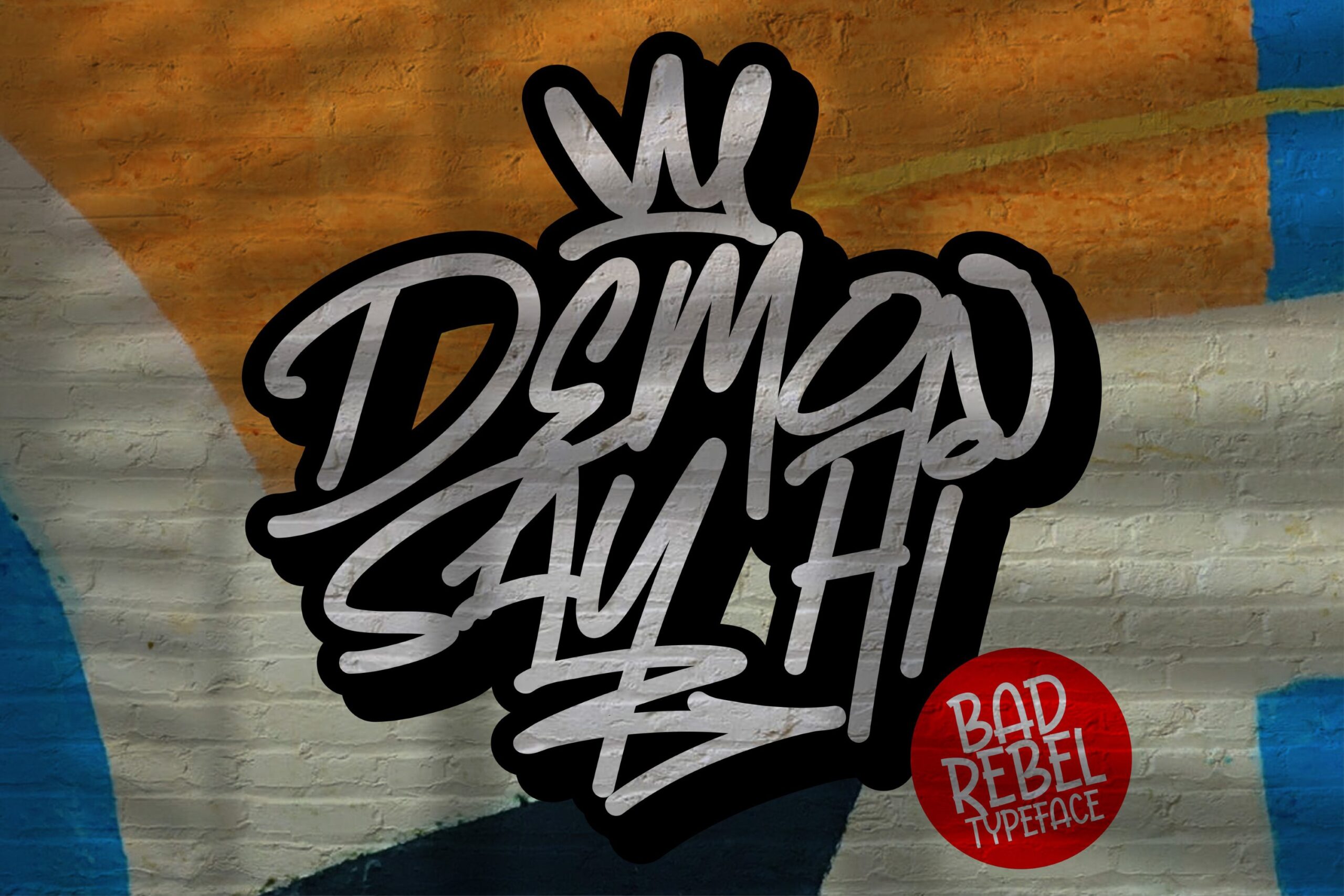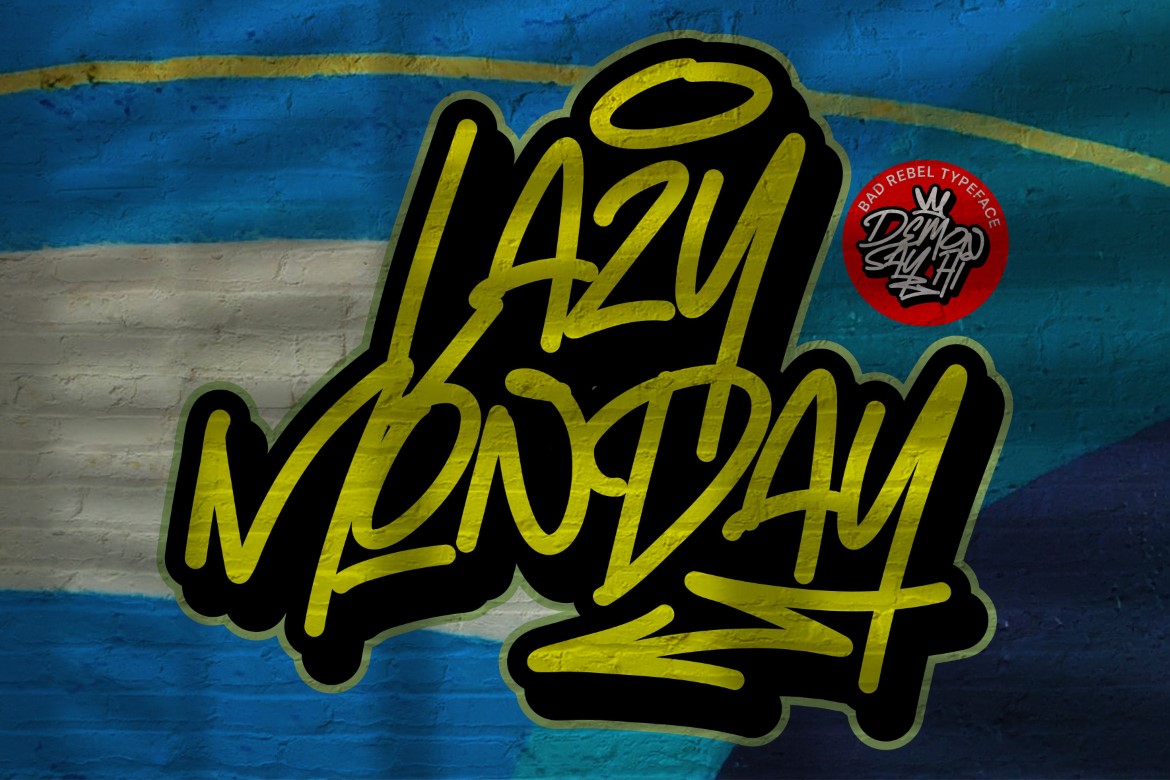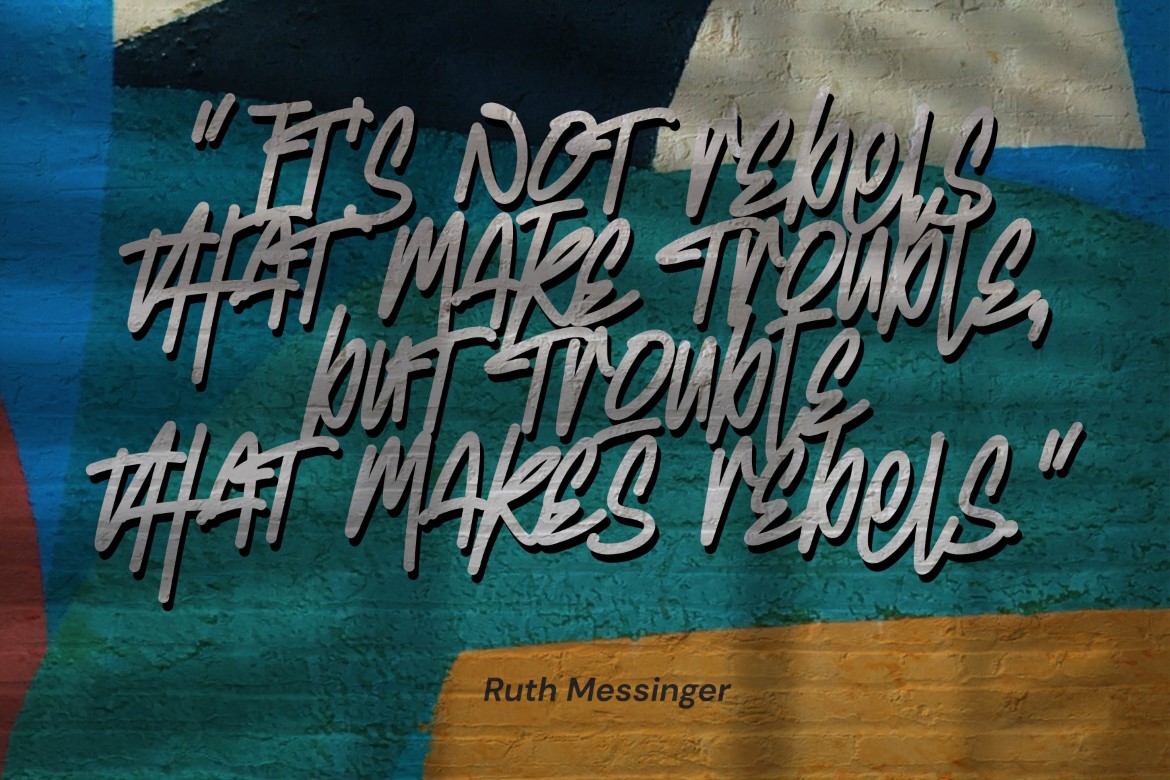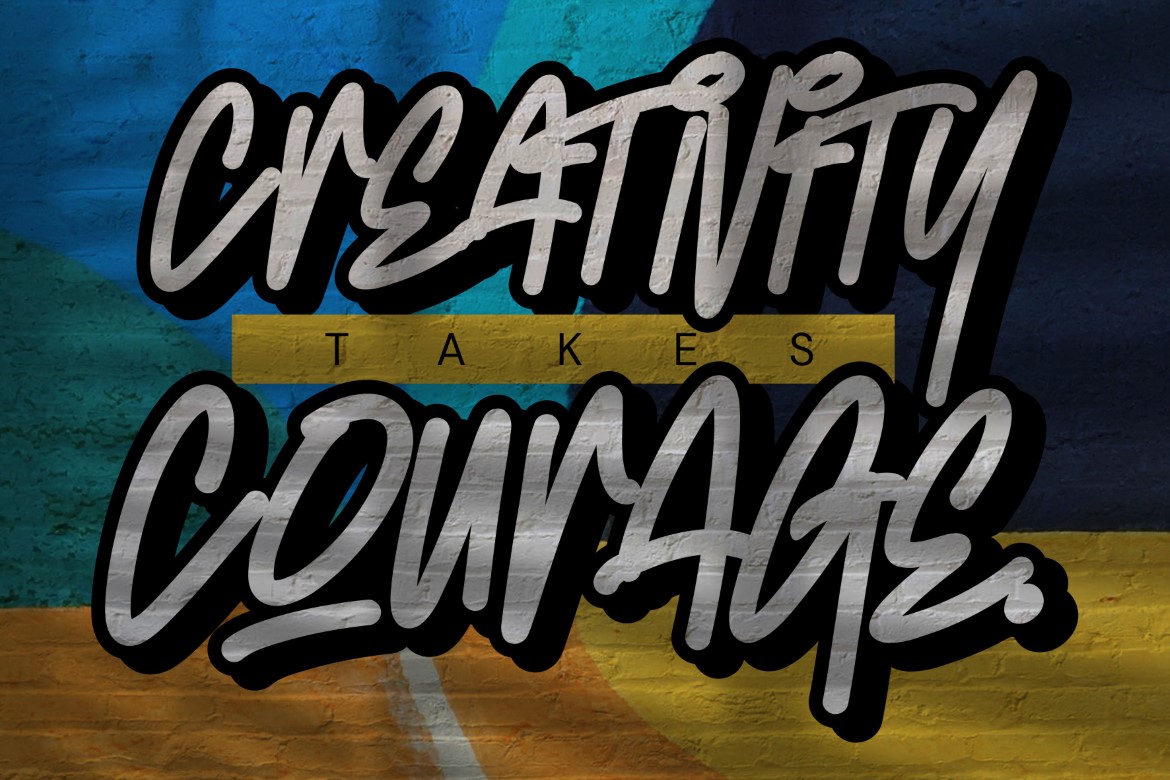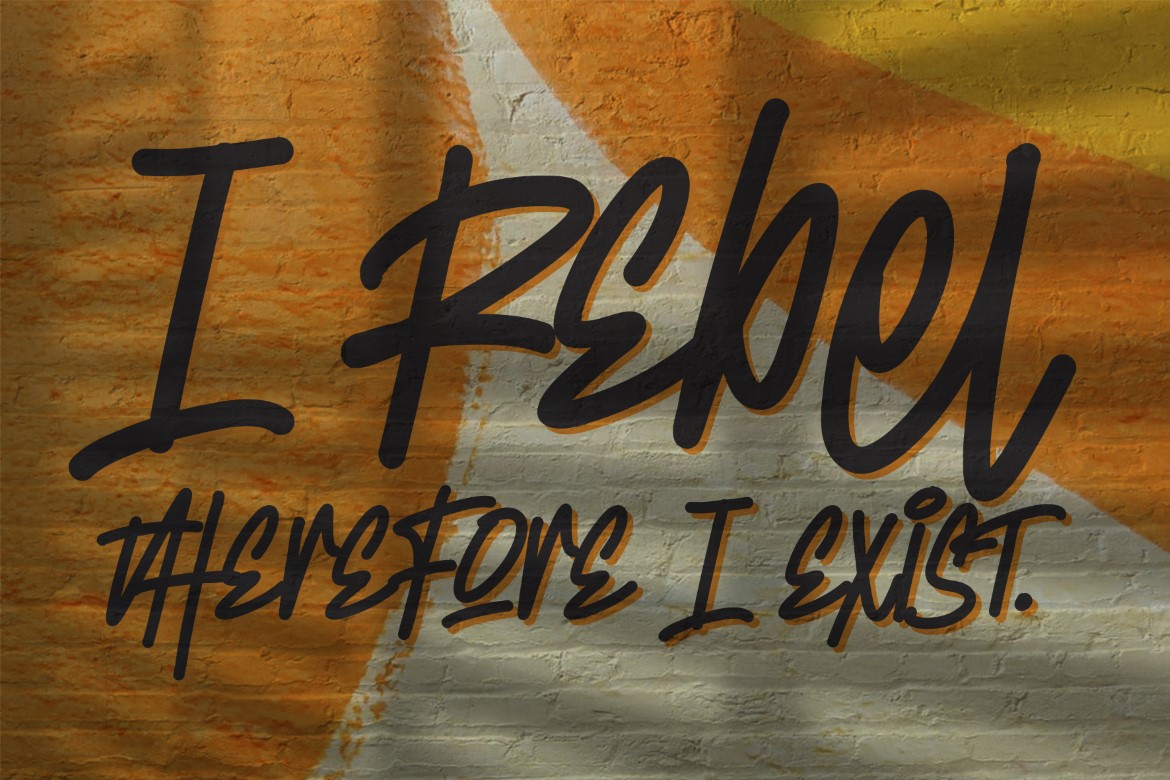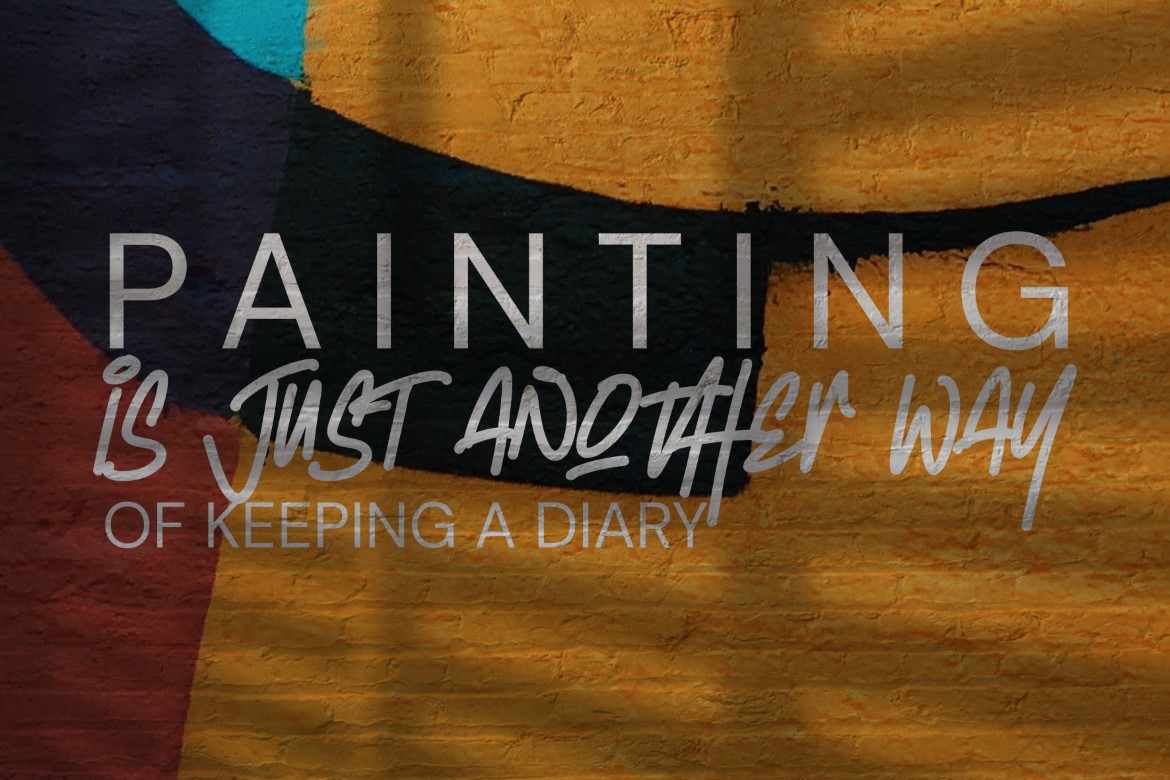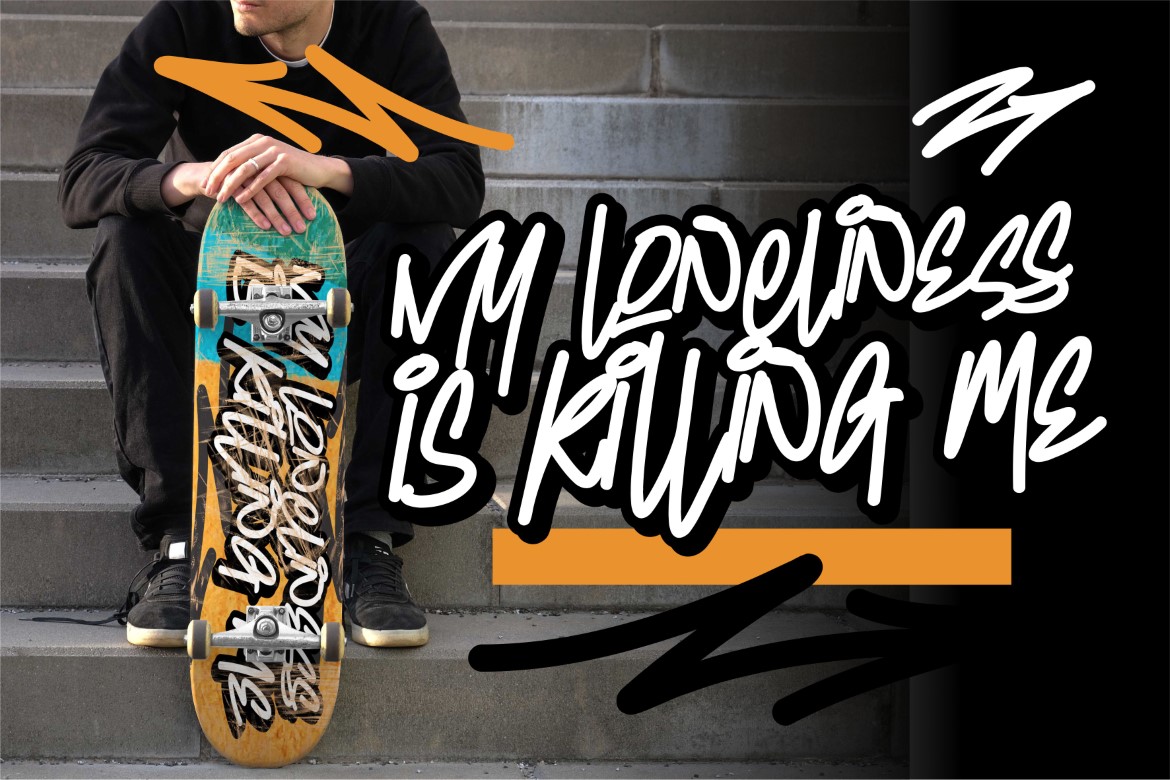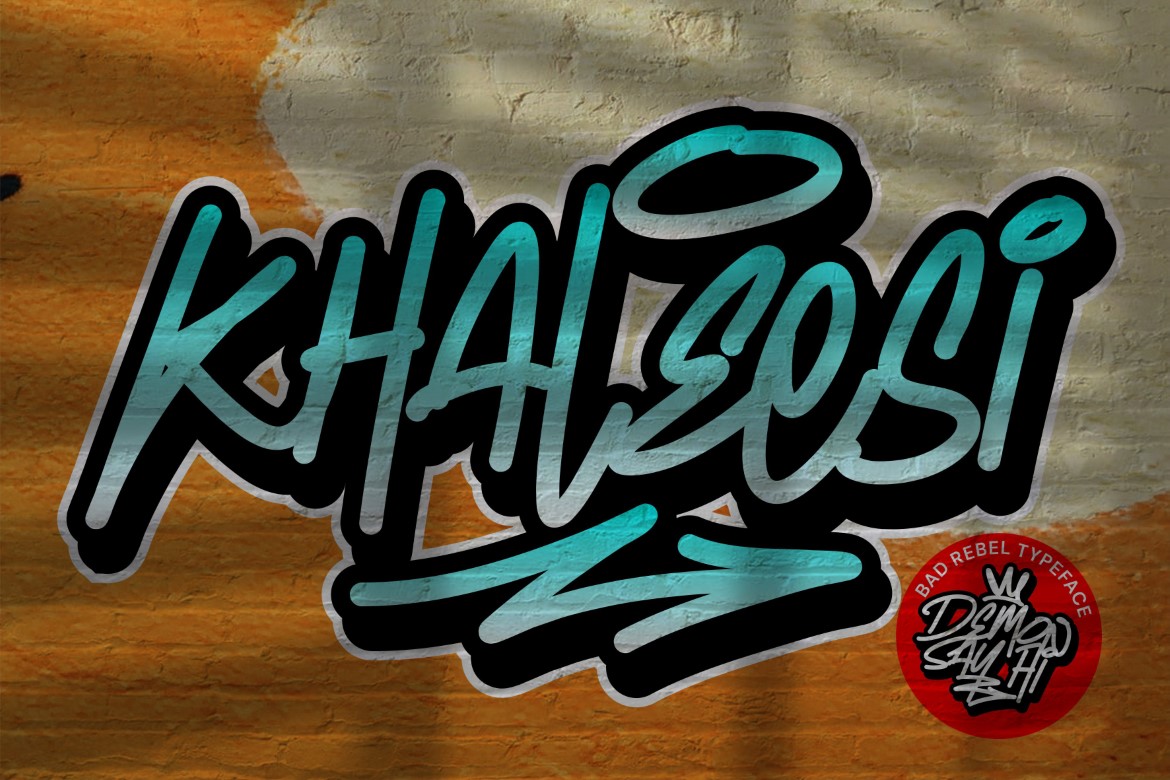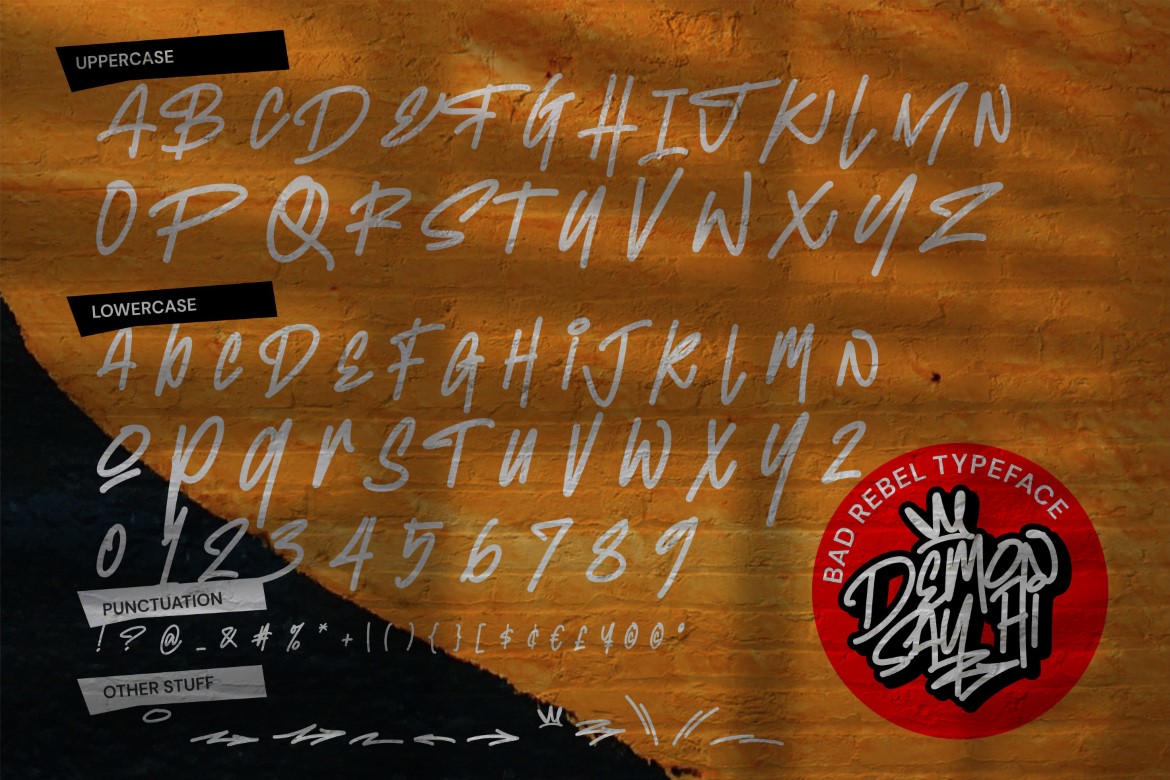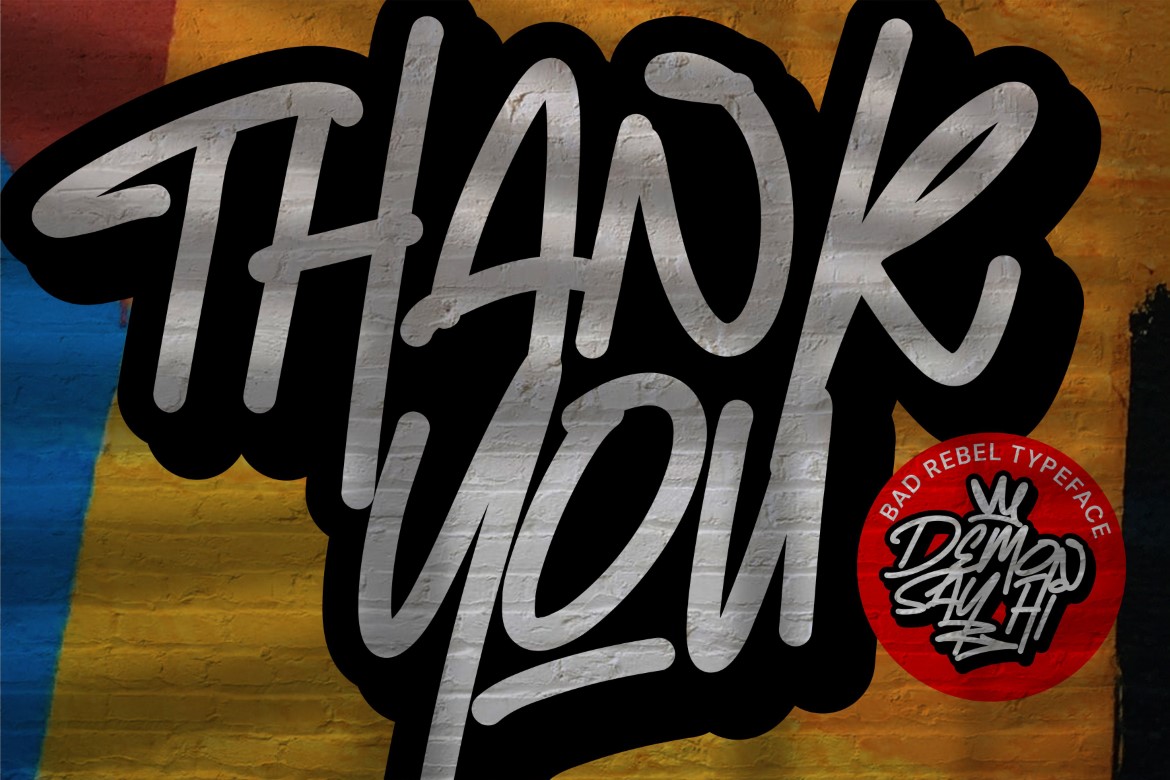
Demon Say Hi -Rebel Typeface. Introducing of our new product that inspired by Street Tagging, graffiti style with a fun theme very good for graffiti poster, Hip Hop music, kids poster, flyer, childrenbook, cartoon, comic etc